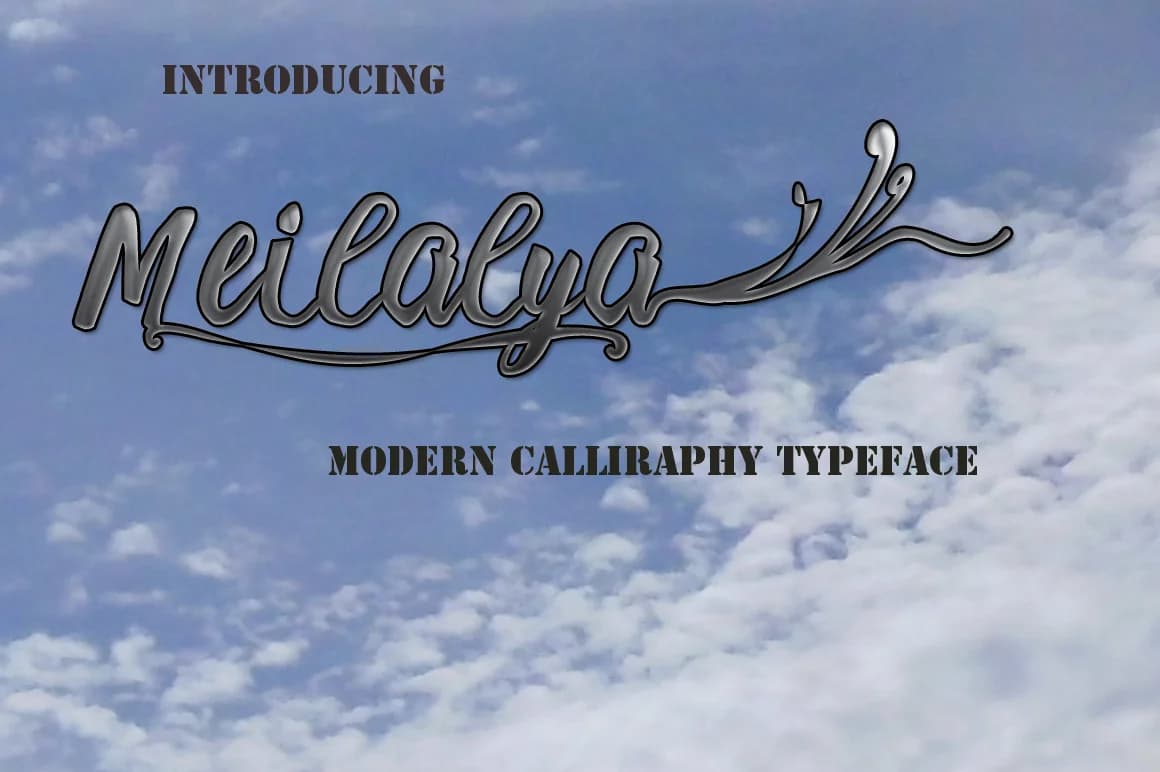
Meilalya by AsaharStudio is a flowing handwritten script that brings contemporary elegance to digital and print projects. The font's hand-drawn quality makes it particularly well-suited for wedding invitation suites, where its smooth letterforms add a personal touch to formal announcements. Beyond celebrations, Meilalya shines in artisan product packaging for small businesses seeking authentic, boutique aesthetics that appeal to customers browsing handcrafted goods online.
The font works beautifully for personalized greeting card designs and custom social media quote graphics, where the natural rhythm of the handwriting creates visual interest without overwhelming the composition. The letterforms maintain consistent weight and flow, making the script both elegant and legible across different applications and sizes. Its careful balance between formality and warmth makes it accessible for both feminine-leaning branding and gender-neutral projects, giving designers flexibility in how they apply the typeface across diverse industries. The hand-drawn construction preserves the intimate character that distinguishes handwritten scripts from purely digital calligraphy.
Meilalya Font is a script font that shines as a display or heading face. Pair it with a clean sans-serif or serif font for body text β the contrast creates a clear hierarchy while the two styles stay balanced and easy to read.